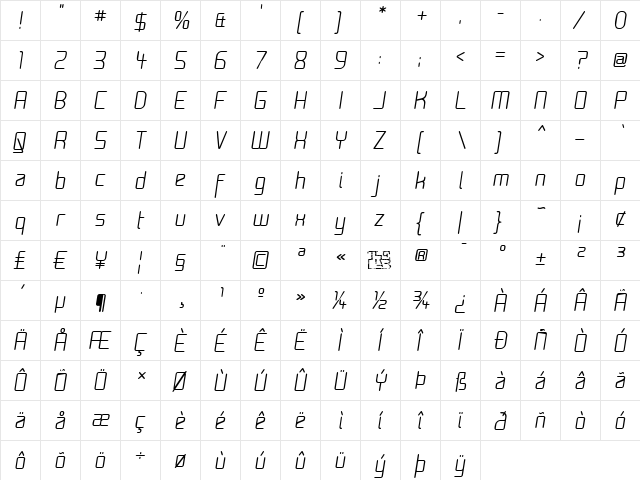
Moondog Fifteen Italic
Design Context for Moondog Fifteen Typeface
Moondog Fifteen is a composed and adaptable typeface that performs quietly and consistently across a wide range of design contexts. The dynamic lean of this cut emphasises speed and emphasis in any layout.
Pro Tip: Try Moondog Fifteen for annotation and caption copy alongside an upright companion — the contrast in angle creates a dynamic but ordered typographic system.